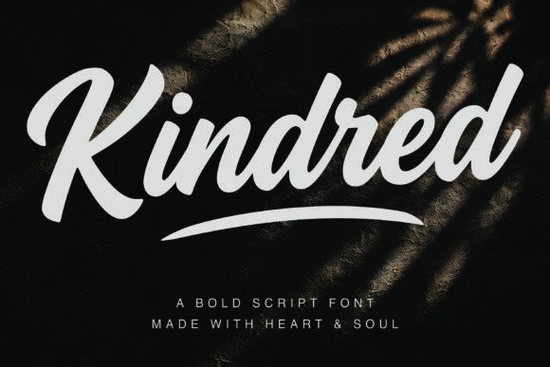
Looking for a bold handwritten script font that feels both elegant and approachable? The Kindred Font is a beautifully crafted typeface with smooth flowing strokes and a confident signature style. It blends modern vintage charm with a handcrafted warmth that works across a wide range of creative projects. Whether you're designing logos, wedding invitations, or social media graphics, this font brings personality and polish without feeling stiff or overdone.
What Makes Kindred Font Different From Other Script Fonts?
There's no shortage of script fonts out there, but most fall into one of two camps: either they're too casual and messy, or they're so ornate they're hard to read. Kindred sits in a sweet spot. Its expressive curves give it a premium, authentic feel while keeping the letterforms clean enough for practical use.
The handcrafted look comes from its flowing strokes, which mimic natural handwriting without being sloppy. This makes it especially useful for designers who want that personal, human touch without sacrificing legibility. Compared to something more delicate like Heart Warming font, Kindred leans bolder and more confident, making it a strong choice when you need your text to stand out at a glance.
What Can You Use Kindred Font For?
This font is versatile enough to fit into many types of design work. Here are some of the most popular uses:
- Branding and logos Kindred's bold strokes hold up well at larger sizes, making it a solid option for wordmarks and logo typography.
- Wedding stationery The elegant flow works beautifully for invitations, save-the-dates, and menus.
- Packaging design If you're creating labels or product packaging, Kindred adds a refined, artisan quality.
- Apparel and print-on-demand Its confident style translates well onto t-shirts, tote bags, and mugs.
- Social media graphics Bold script fonts like this one grab attention in crowded feeds.
- Blog headers and website accents Use it for display text to give your site a warm, stylish look.
If you're working on a project that calls for something more relaxed and whimsical, you might also want to check out Maybe Tomorrow font, which has a lighter, more laid-back character. But for projects that need confidence and elegance together, Kindred is hard to beat.
Does Kindred Font Work Well for Print-on-Demand Sellers?
Absolutely. One of the biggest challenges for POD sellers is finding fonts that look great on physical products without any issues. Kindred's thick, consistent strokes mean it reproduces cleanly on textiles, mugs, posters, and other merchandise. There are no ultra-thin hairlines that might disappear in printing, which is a common problem with ornate script fonts.
It also pairs well with simple sans-serif fonts for designs that mix a script heading with clean body text. Think product descriptions on packaging or taglines on apparel designs. The combination of a bold script like Kindred with a minimal typeface creates visual contrast that's both eye-catching and easy to read.
How Does It Compare to Other Creative Fabrica Script Fonts?
Creative Fabrica offers a wide collection of script fonts, and each one brings a different mood to the table. Chicago Downton font has a more classic, editorial feel, while Stylish font leans into contemporary flair. Kindred stands out because of its balance between vintage warmth and modern boldness.
For those who prefer something with a playful, rounded personality, Letterland font is another option worth exploring. But if your project needs that premium, handcrafted signature look, Kindred is the stronger pick.
What Should You Check Before Using This Font?
Before you start designing, here are a few things worth keeping in mind:
- License terms Always review the font license to make sure it covers your intended use, especially for commercial projects like POD or client work.
- Pairing choices Test Kindred with a few different body fonts to see what works best for your specific design. Simple sans-serifs usually pair well.
- Size and spacing At very small sizes, script fonts can lose readability. Use Kindred for headings and display text rather than long paragraphs.
- Color contrast Make sure the font color stands out clearly against your background, especially for packaging and apparel designs.